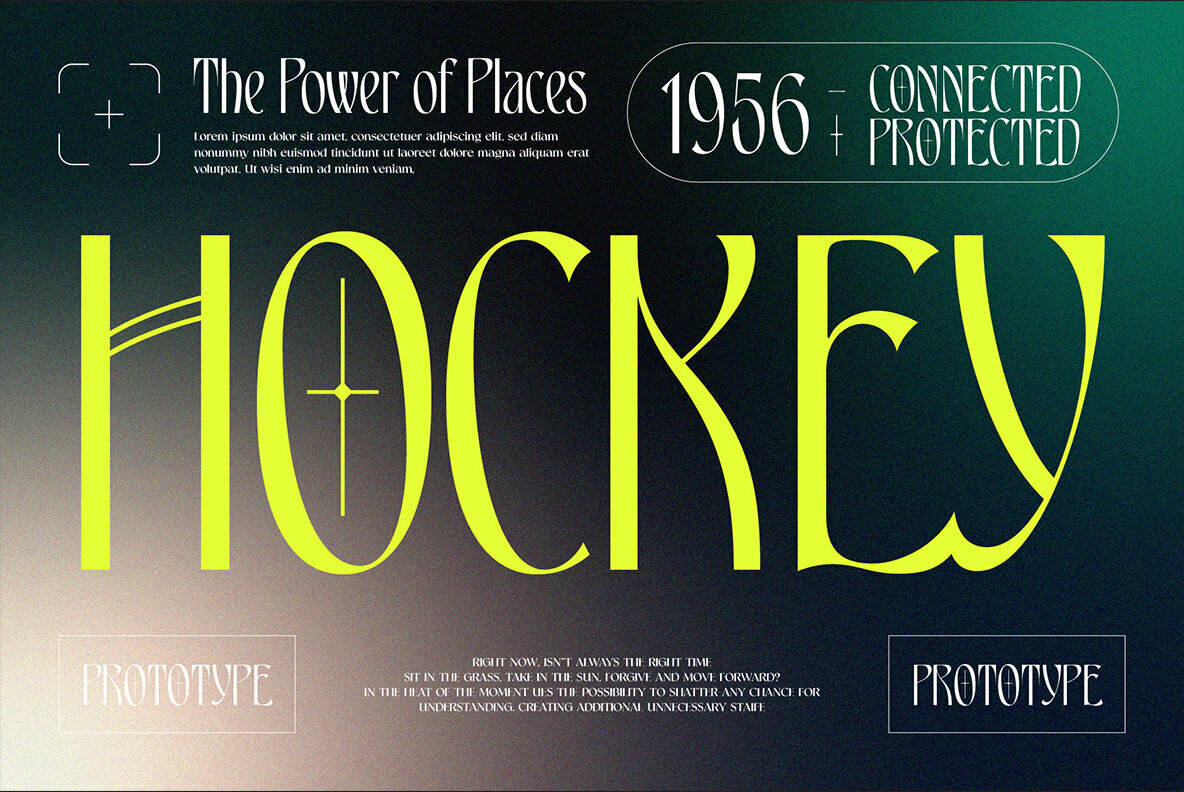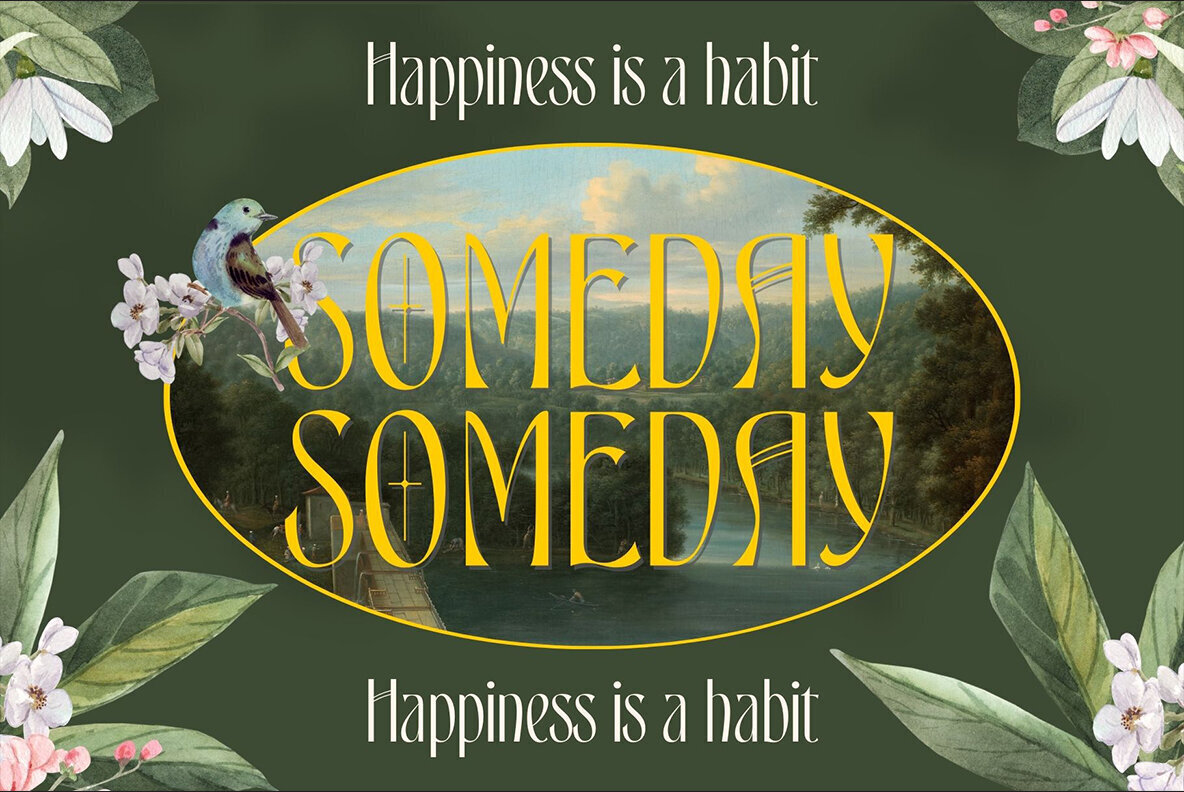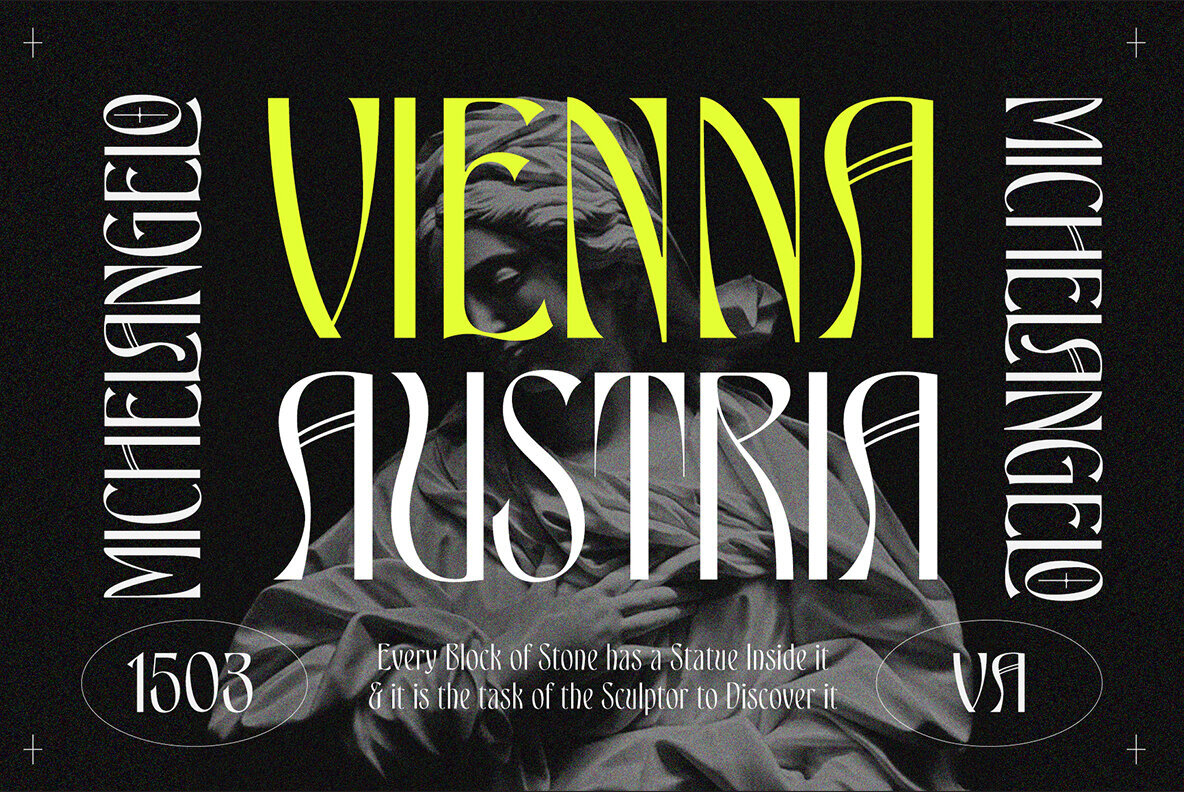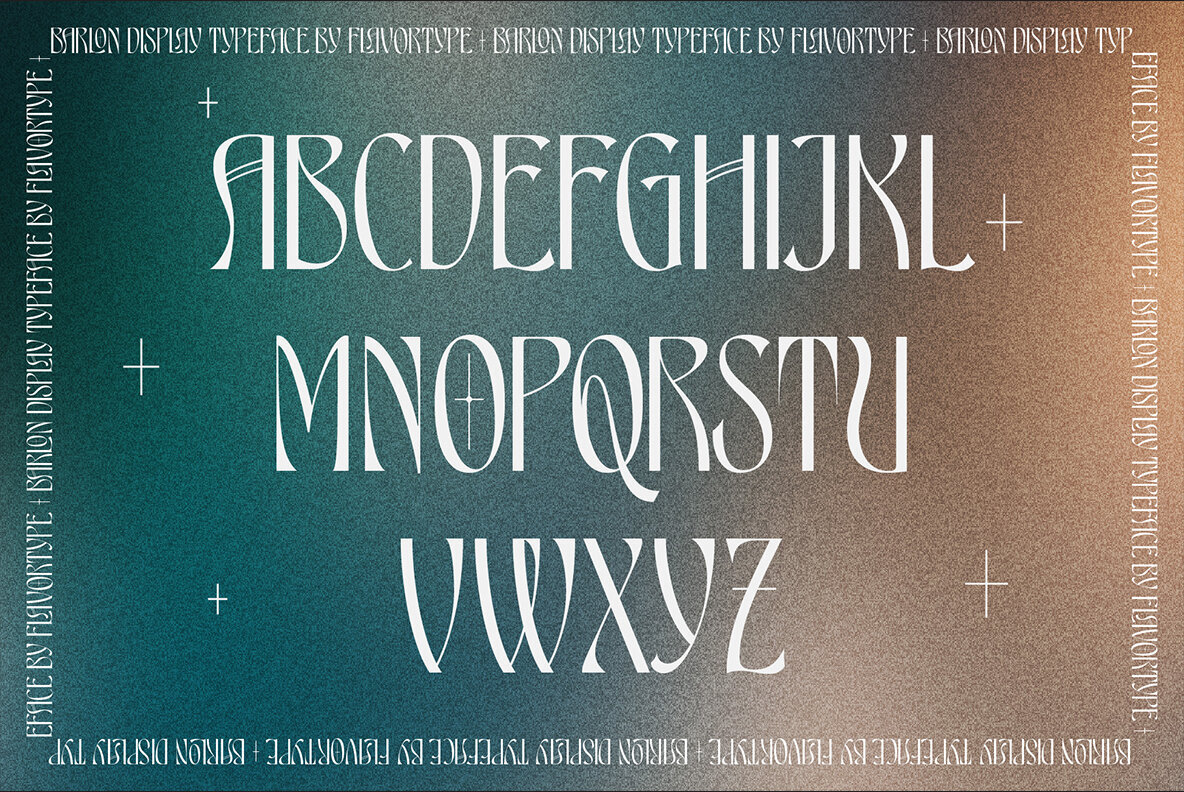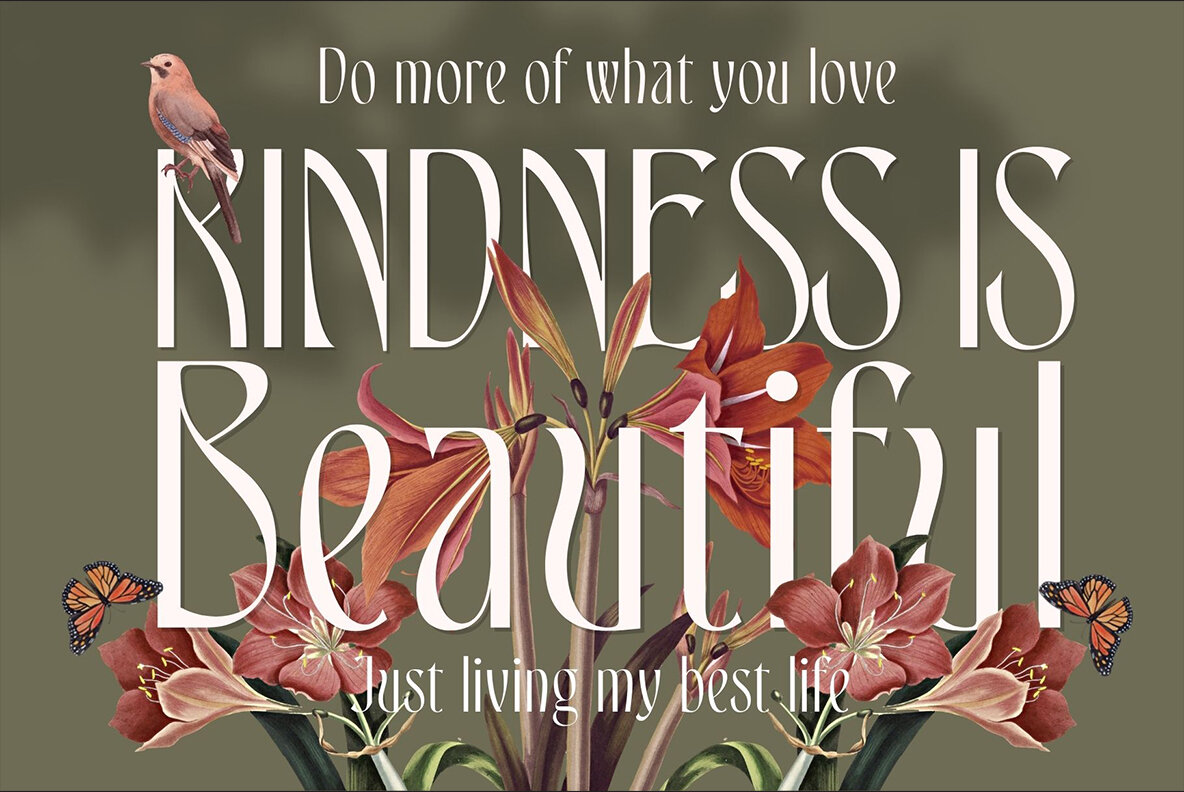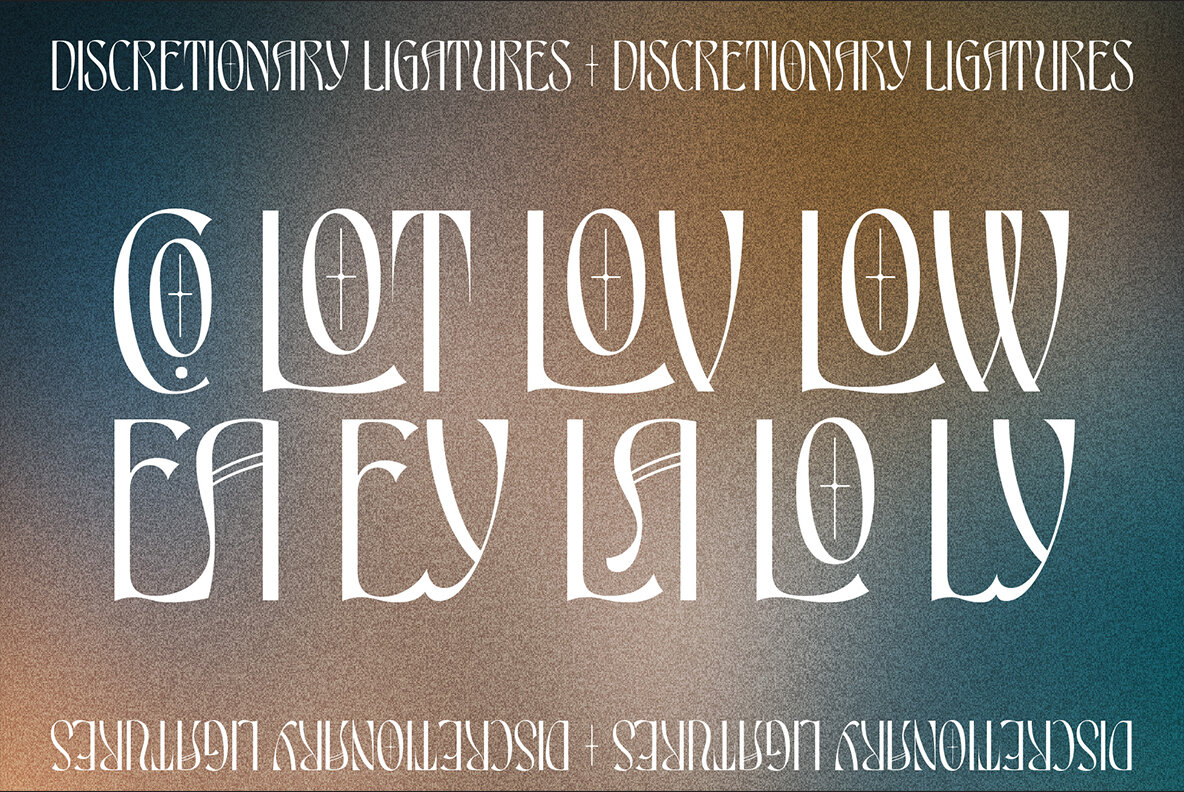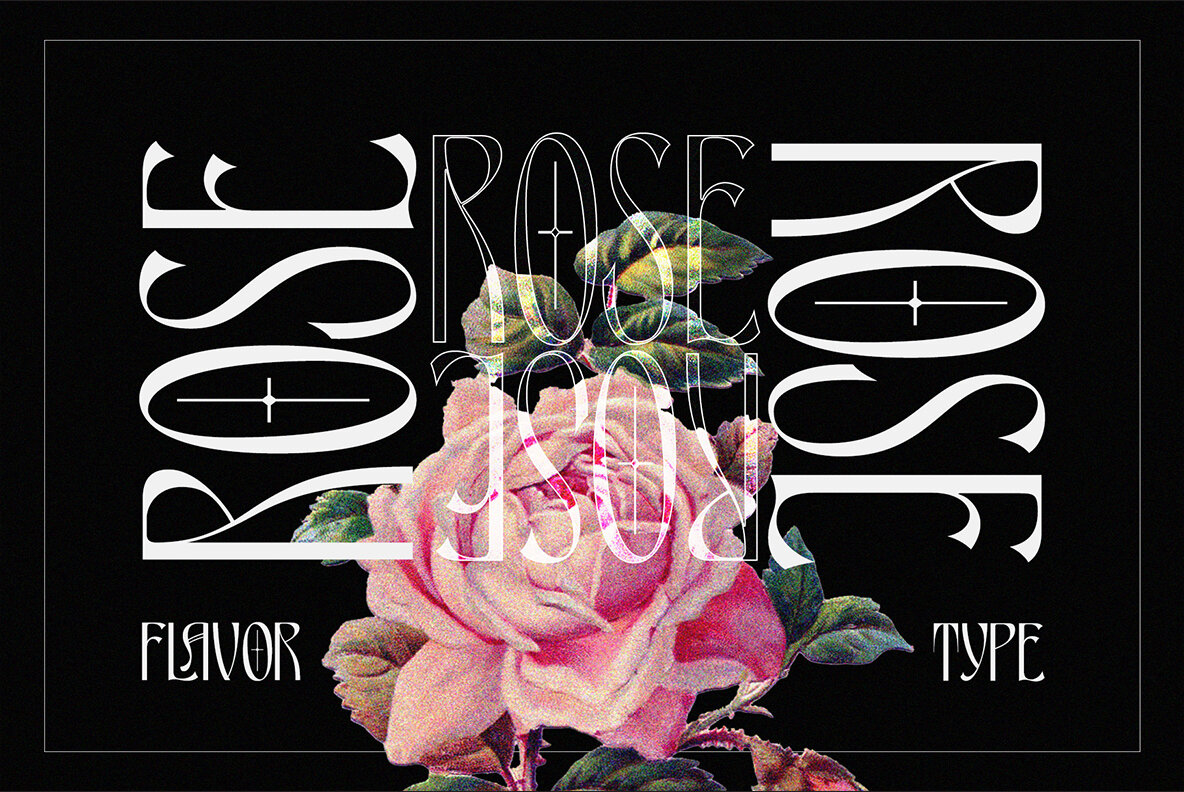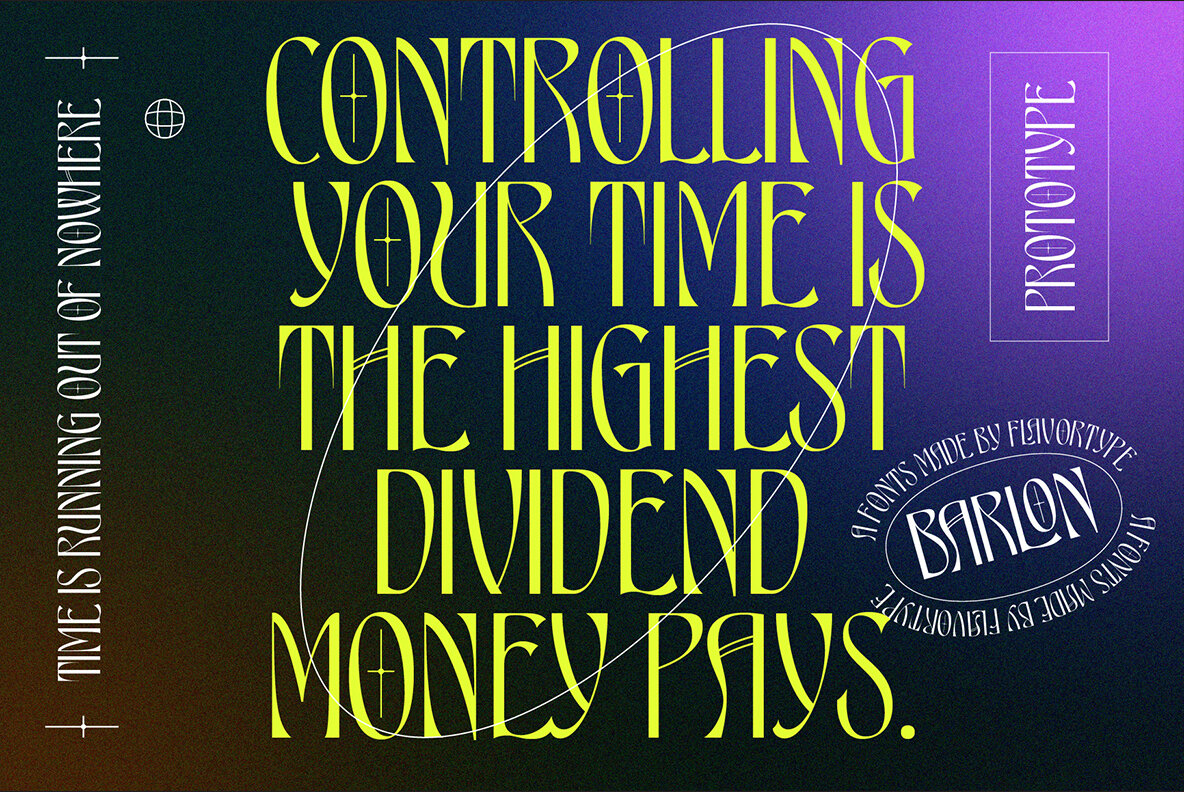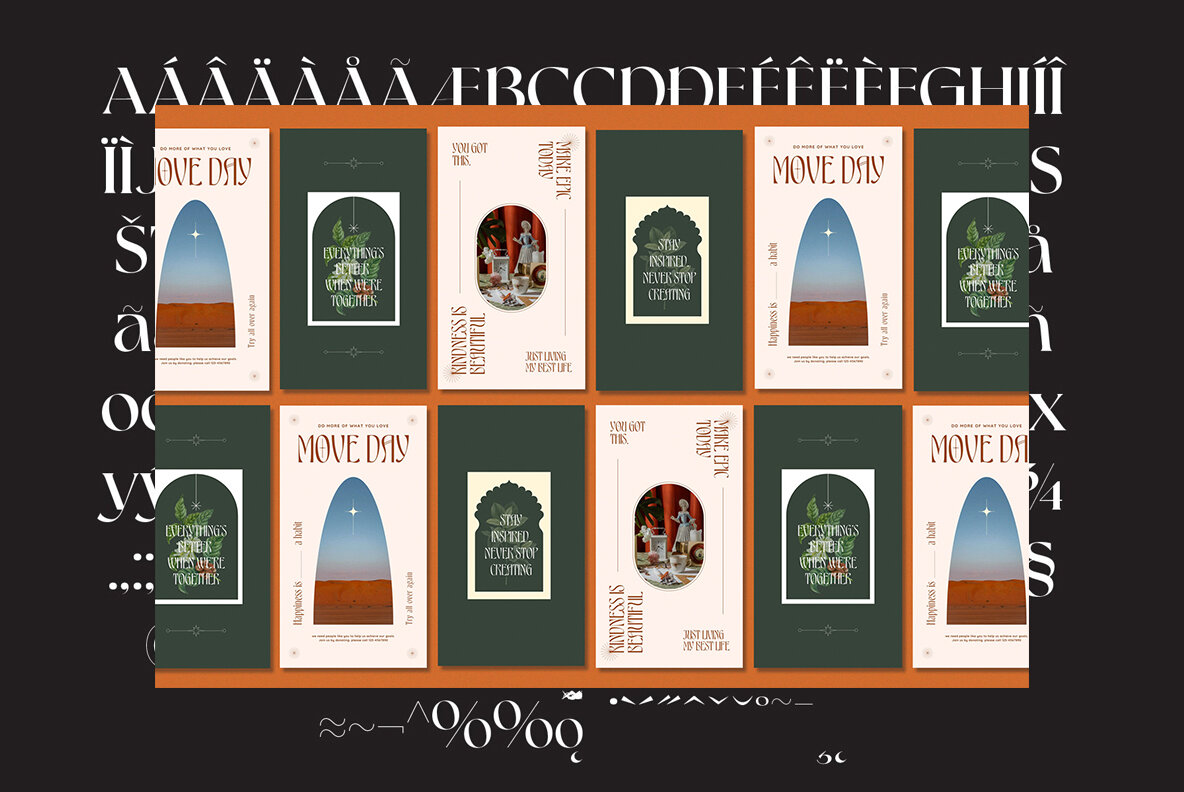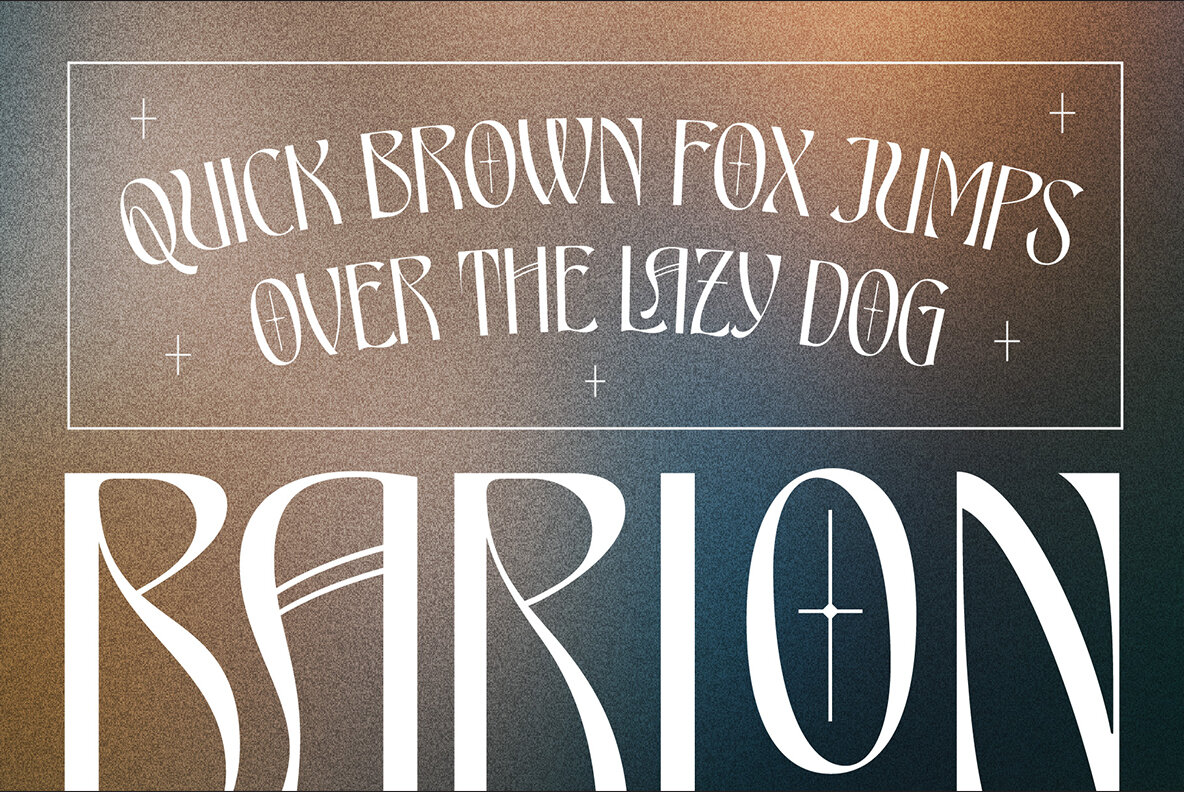
Barlon Font
Barlon Regular
Barlon is the typeface of choice for those looking to make their designs stand out. It's based on old European art nouveau styles, with some modern elements mixed in there too! The result? A classic yet forward-thinking font that will work well no matter what you're designing."